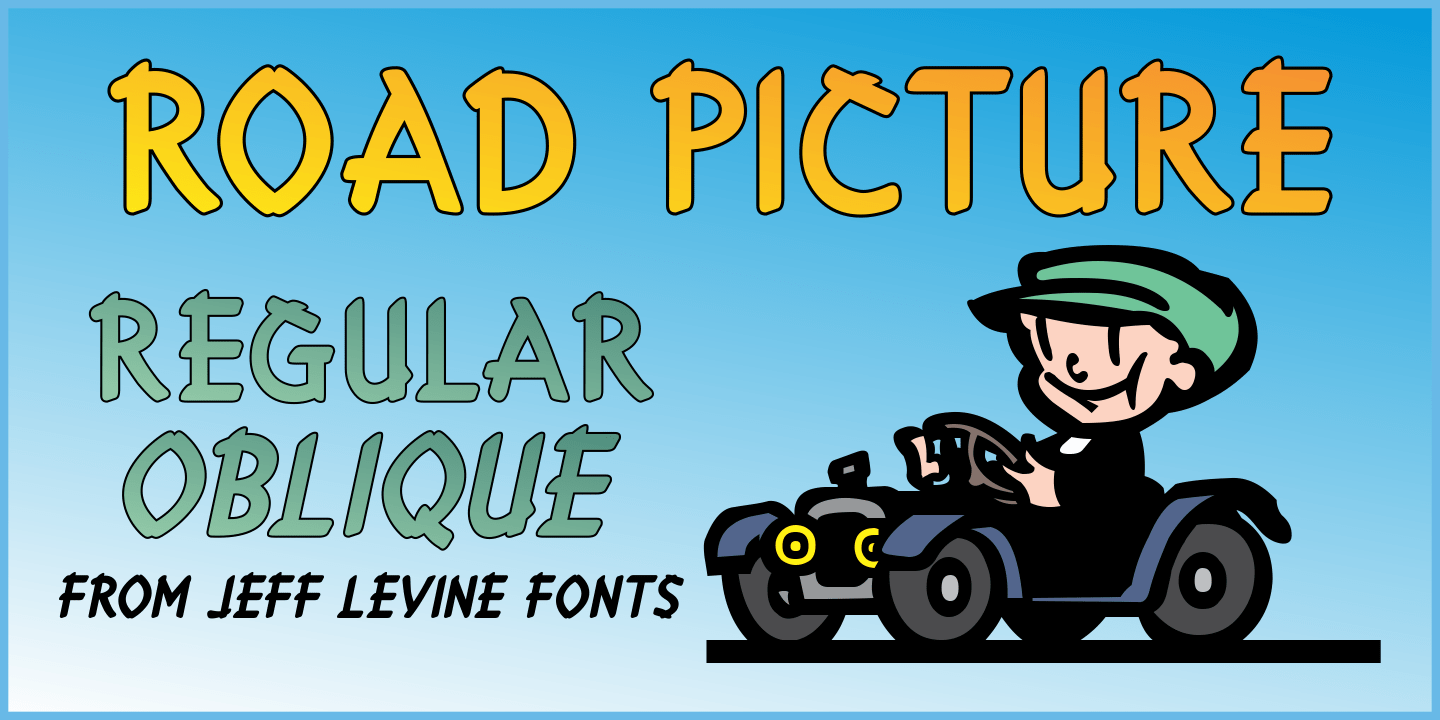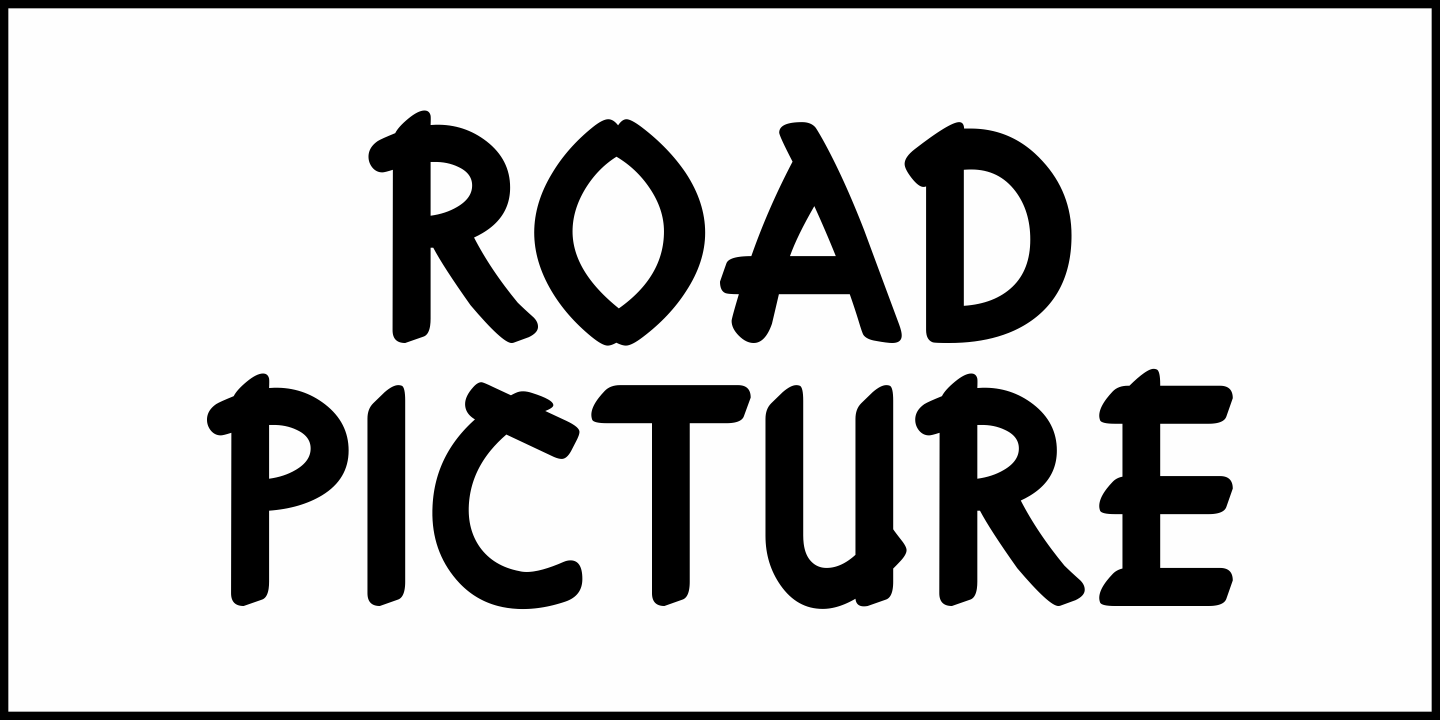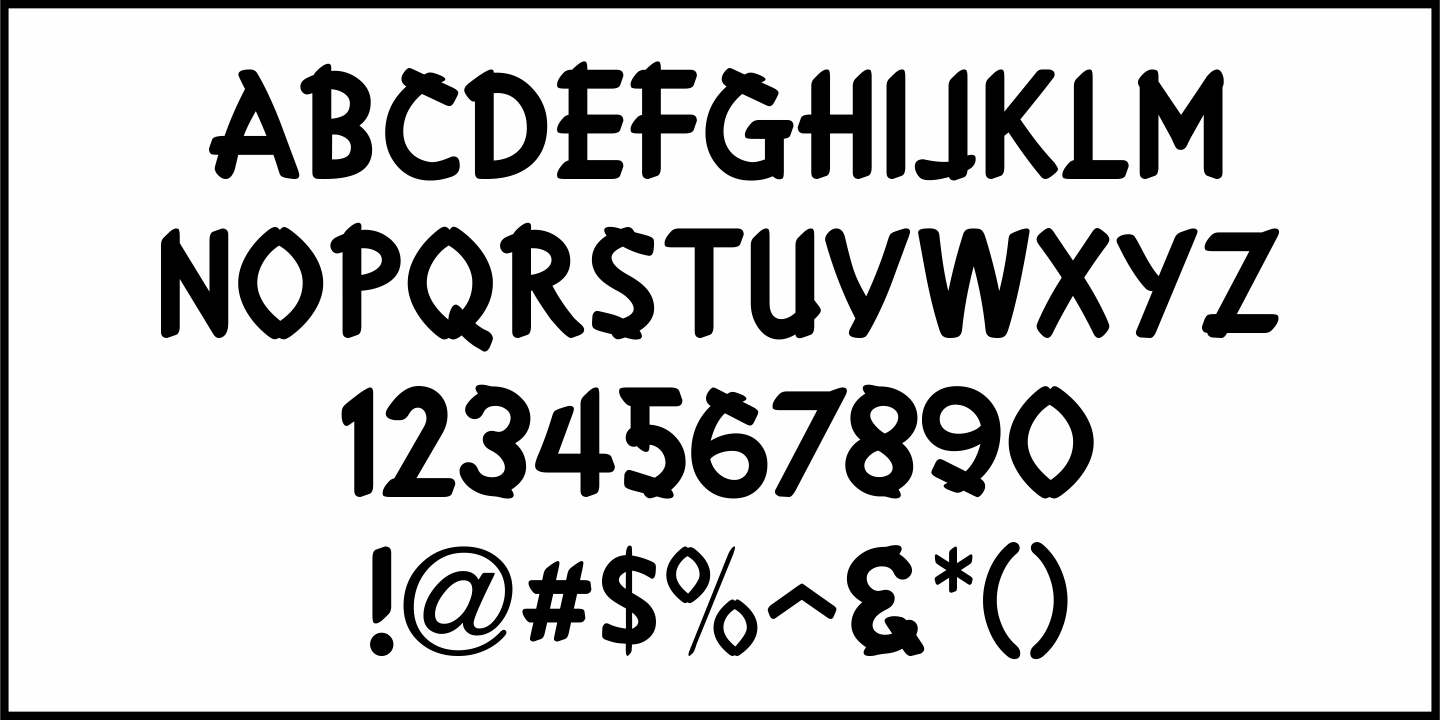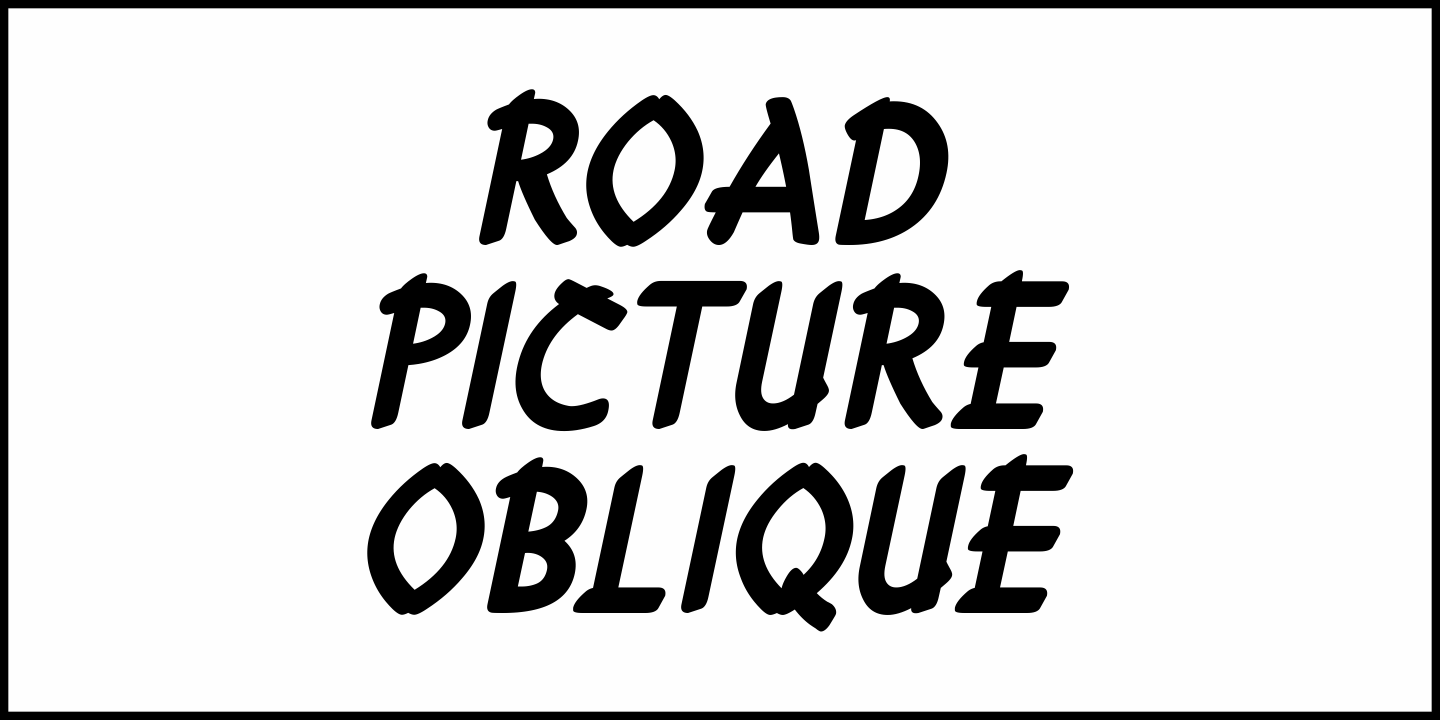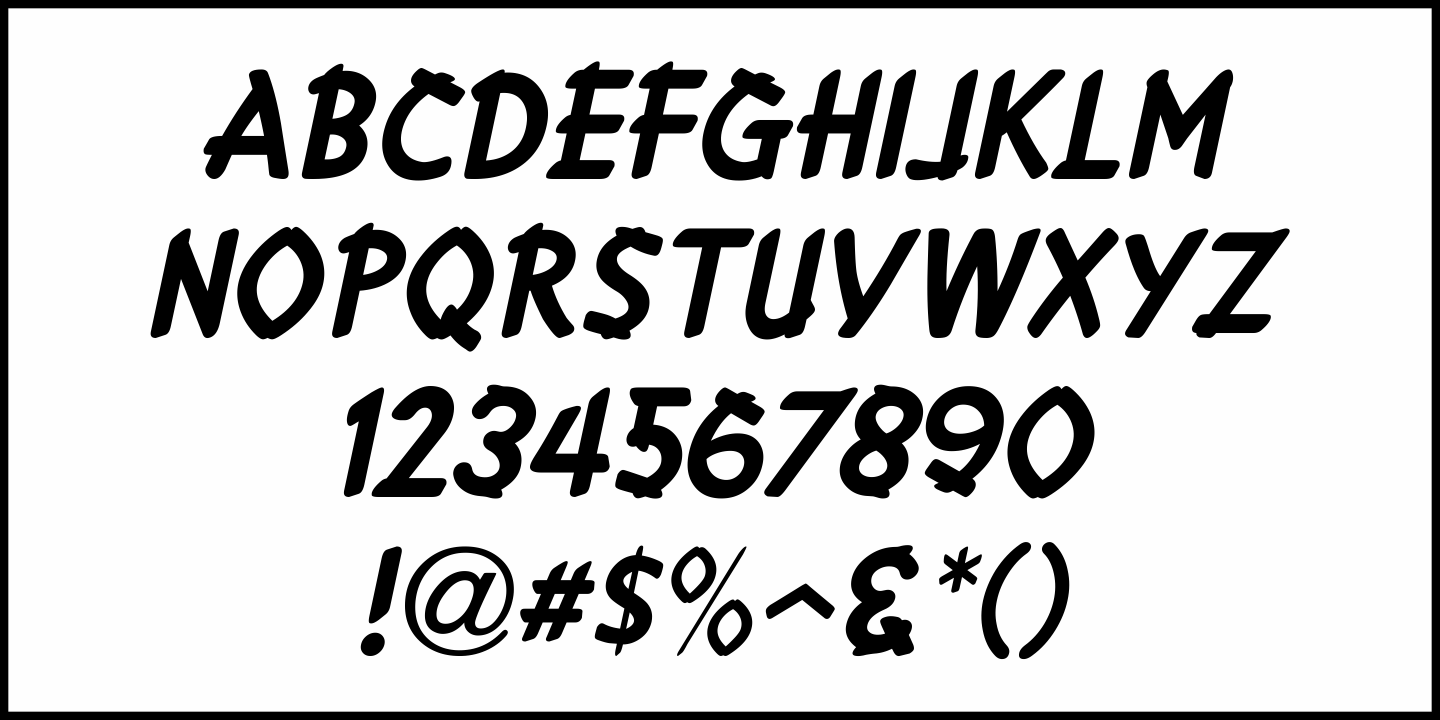
Road Picture
Road Picture JNL was modeled after the hand lettered title and credits for the 1940 Bob Hope-Bing Crosby semi-musical comedy “Road to Singapore”, and is available in both regular and oblique versions.
Although the lettering design doesn’t resemble anything that was probably used in Singapore at the time, its faux “exotic” look still makes for an interesting revival.
Bob Hope and Bing Crosby made a total of seven “road” pictures, hence the homage in the name of this type font.